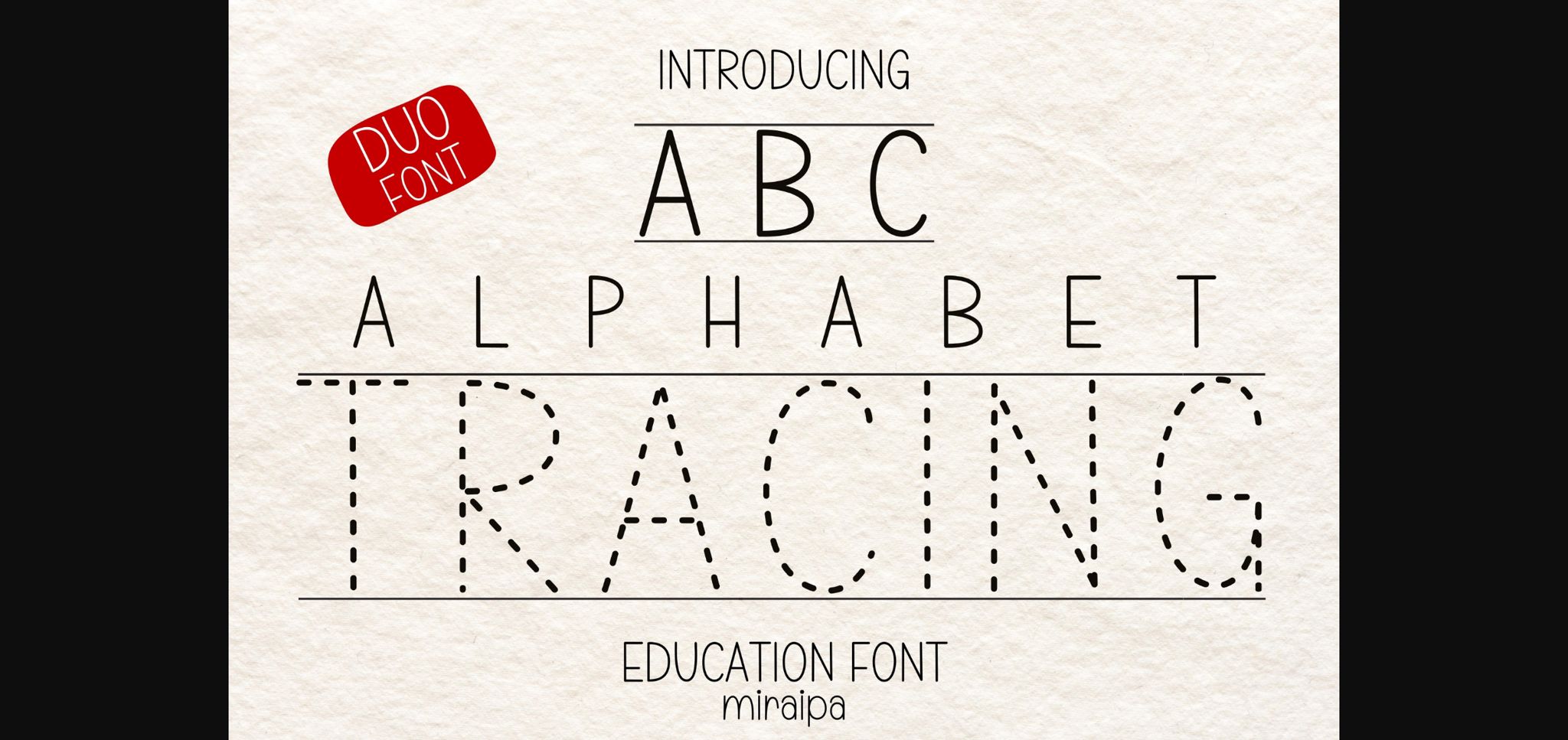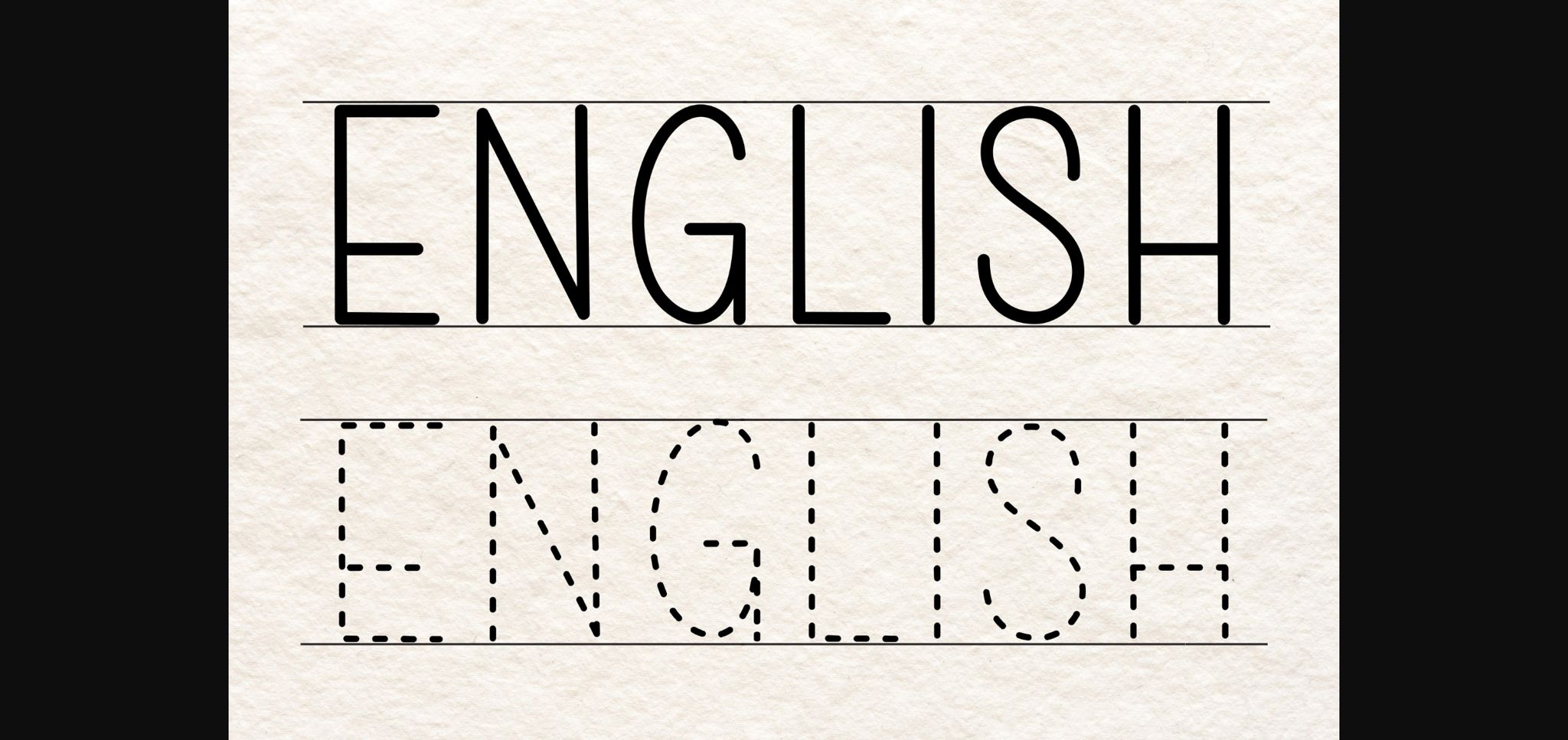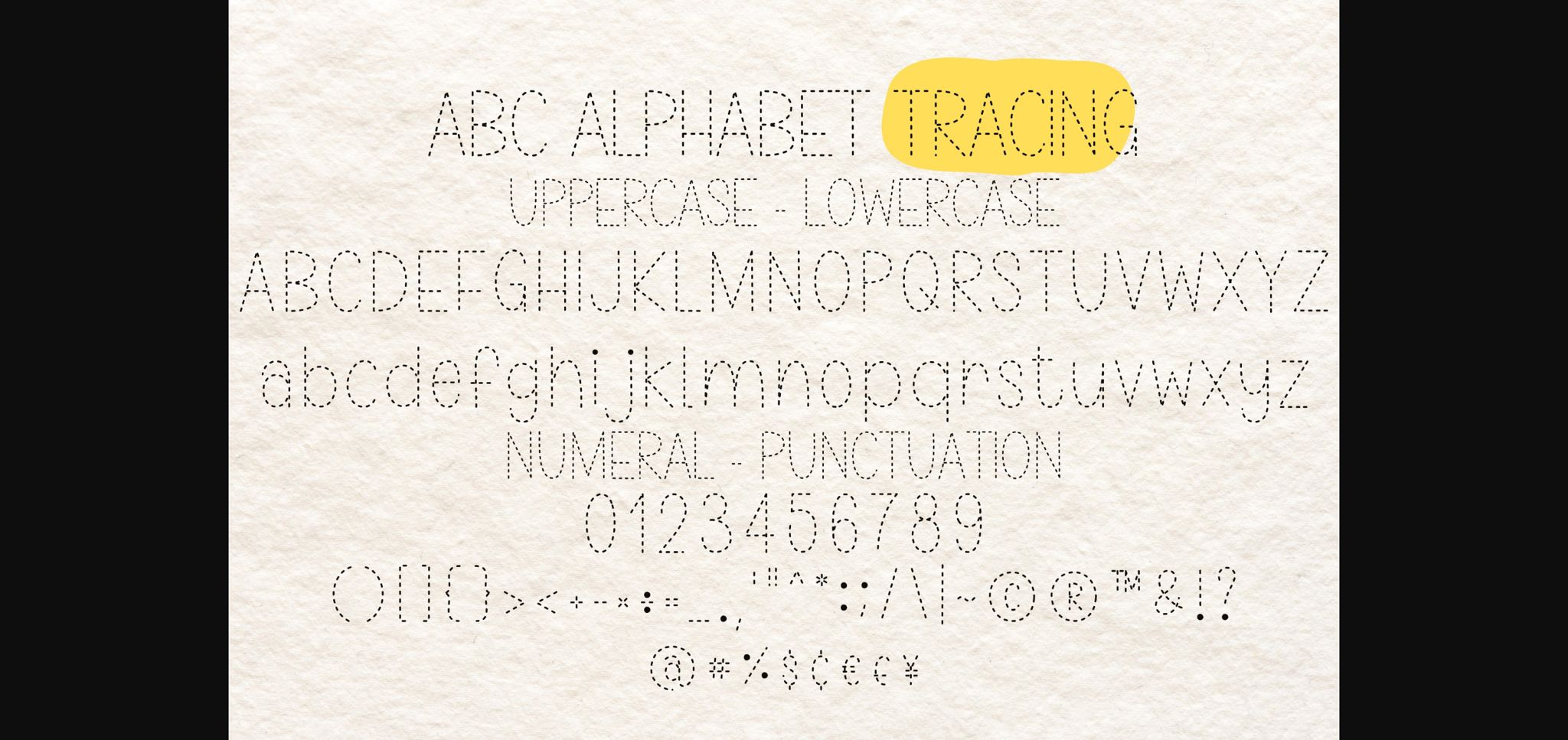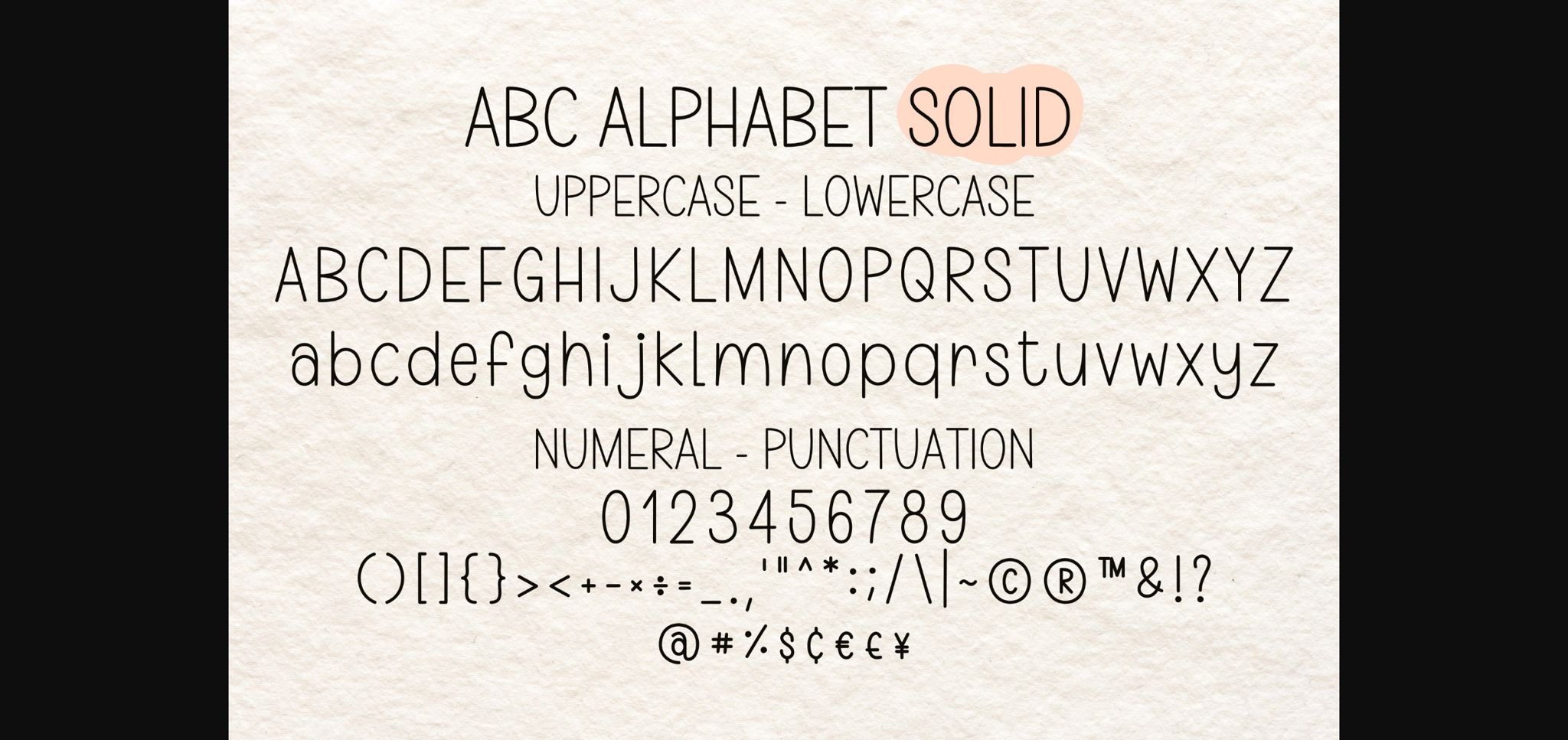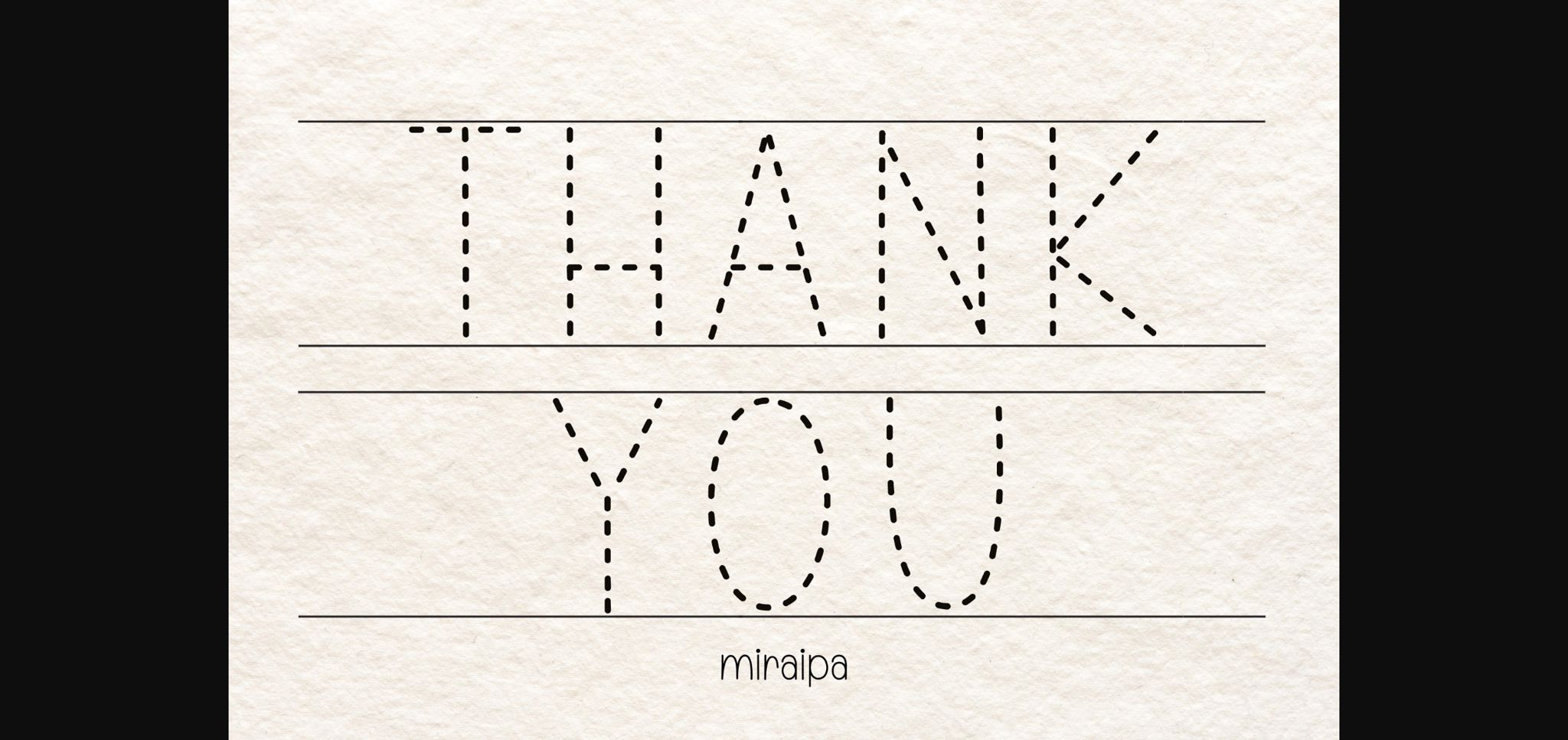
Abc Alphabet Tracing Font
About Abc Alphabet Tracing Font
ABC Alphabet Tracing is the perfect and useful handwritten tool for making your own alphabet tracing sheet or any related topic. To make perfect for kids or anyone who would like to practice writing. Also suitable for your diary planner, journal, back-to-school, invitations, social media posts or anything that needs a friendly touch. Add it now to your fonts library, and it will bring any of your DIY projects to life.